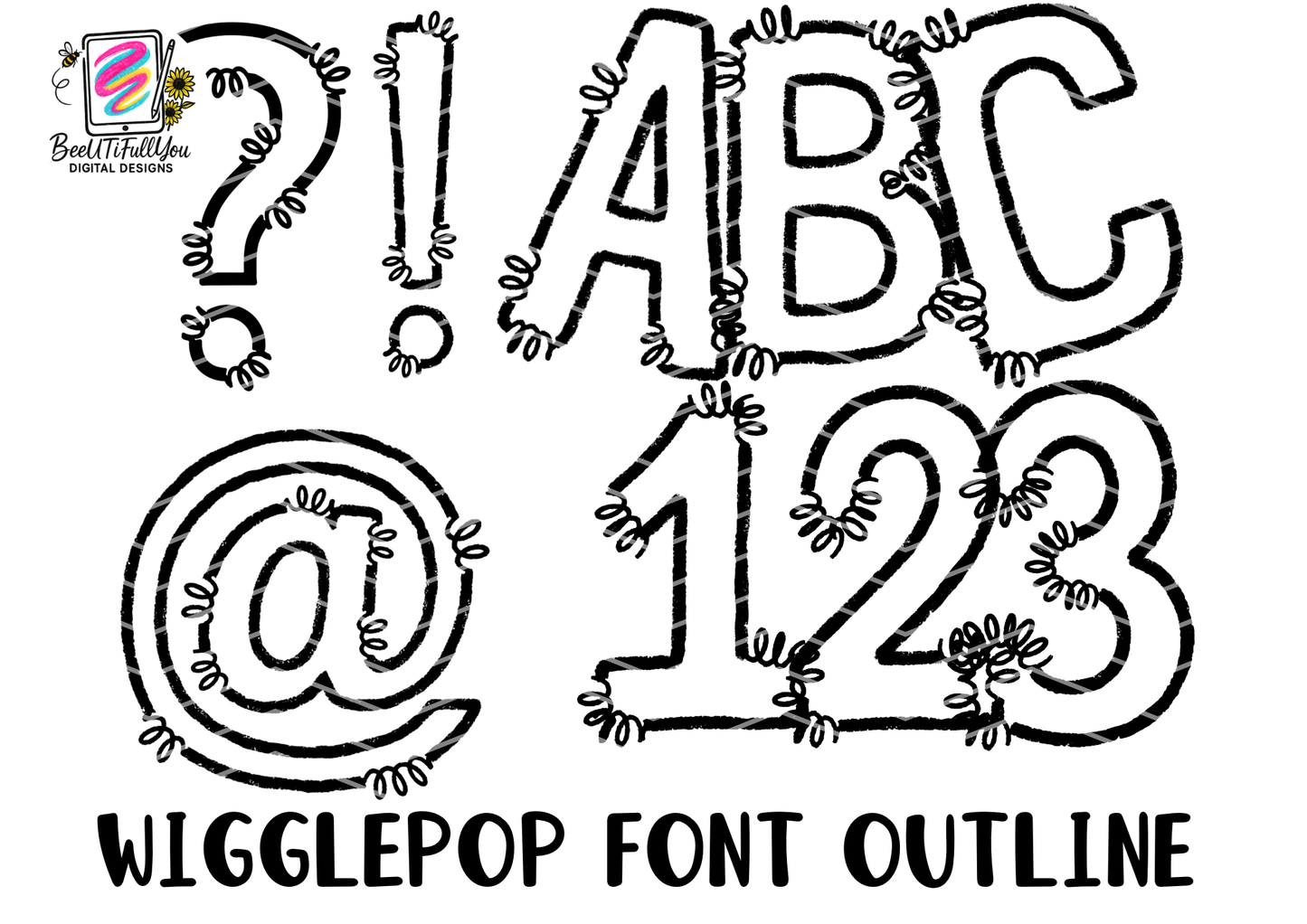
This listing is for the WigglePop Font Outline Set, designed for creators who want to build, customize, and sell their own fonts or text designs.
This is an outline-only font base, giving you full creative freedom to add your own style, texture, fills, effects, and personality.
• Alphabet A–Z
• Numbers 0–9
• Common symbols ( ?, !, @ included )
✔ A font outline base
✔ Designed for customization
✔ Intended for creators who want to make their own fonts or text styles
✖ Not a finished font